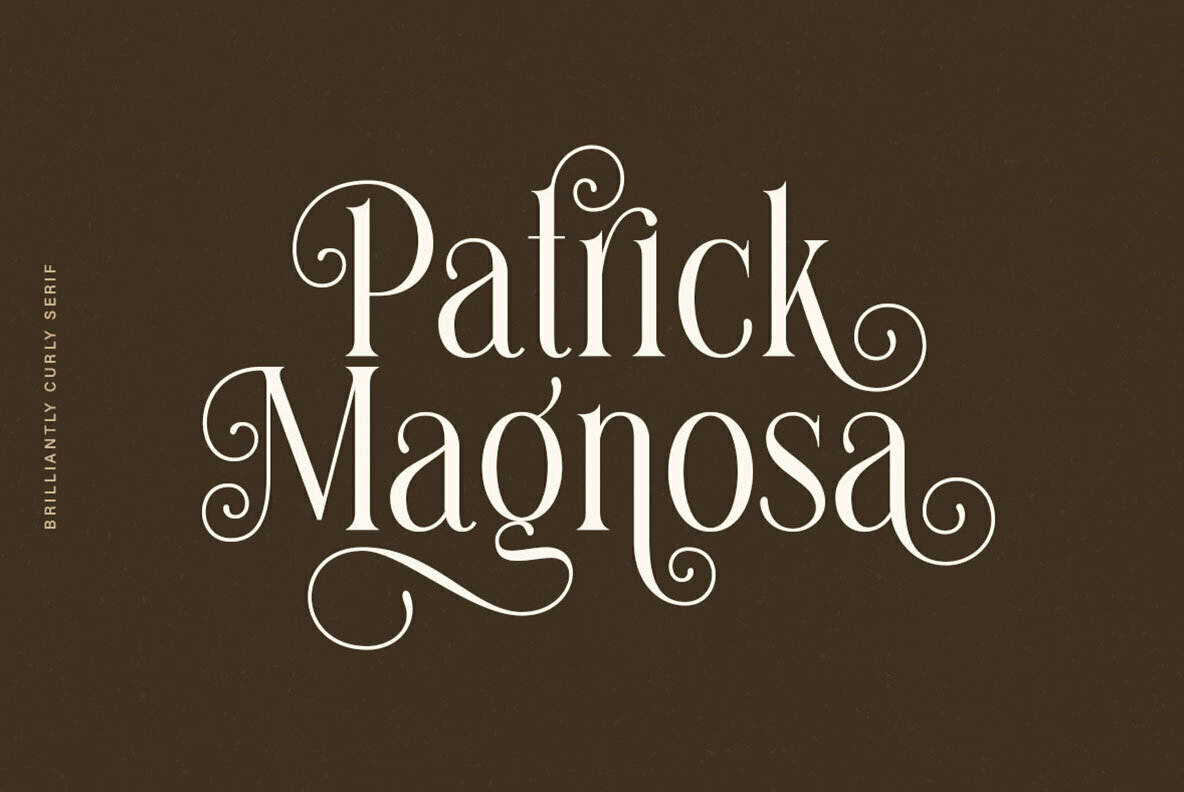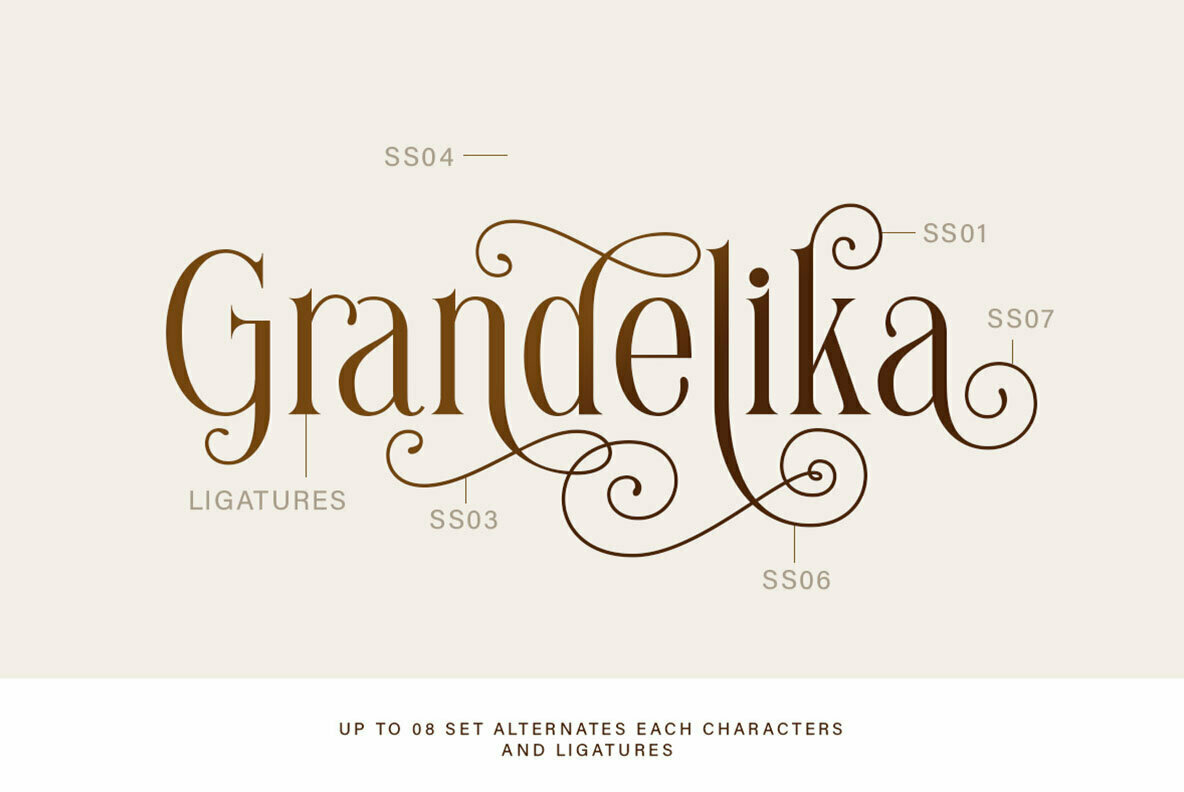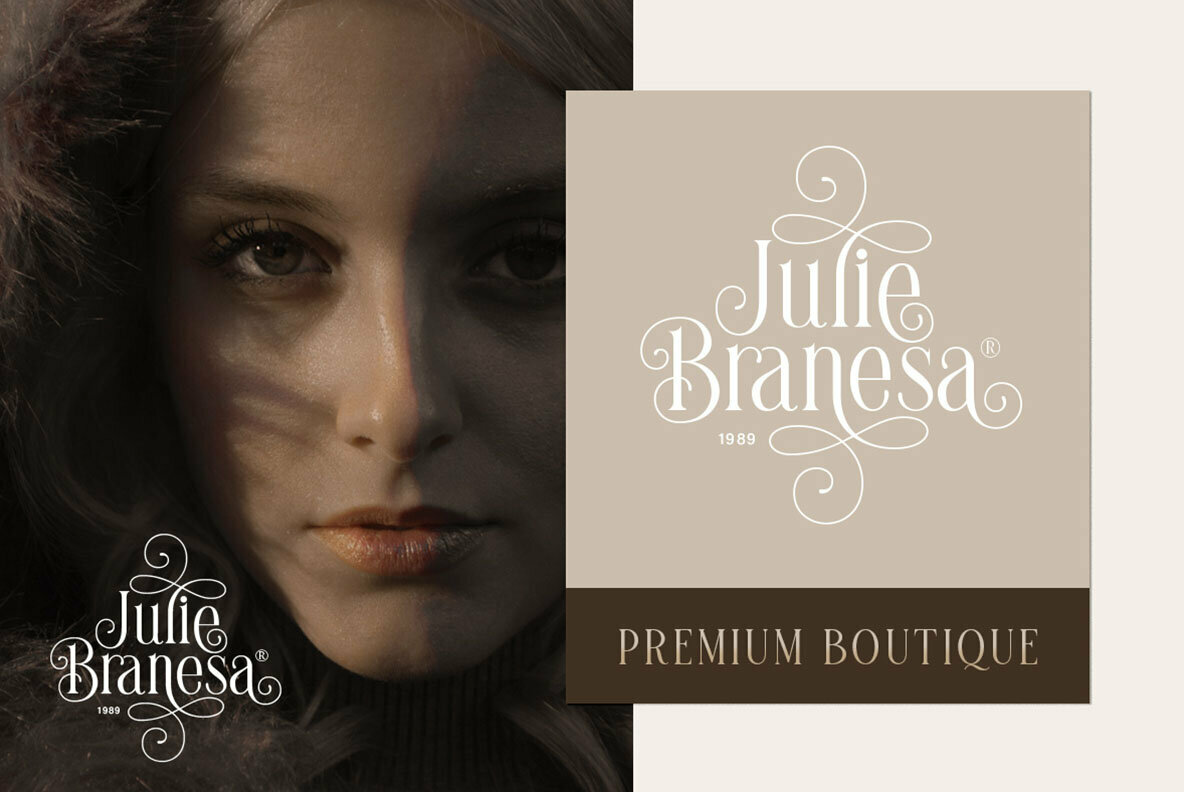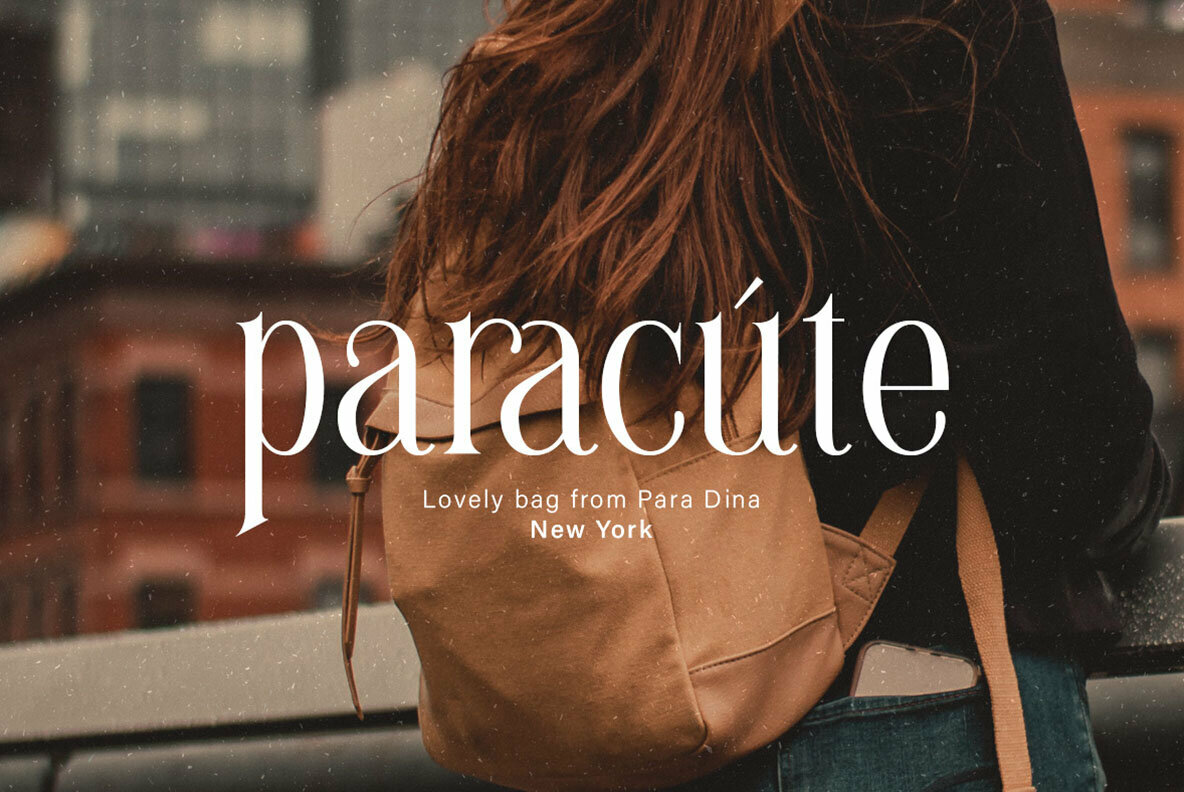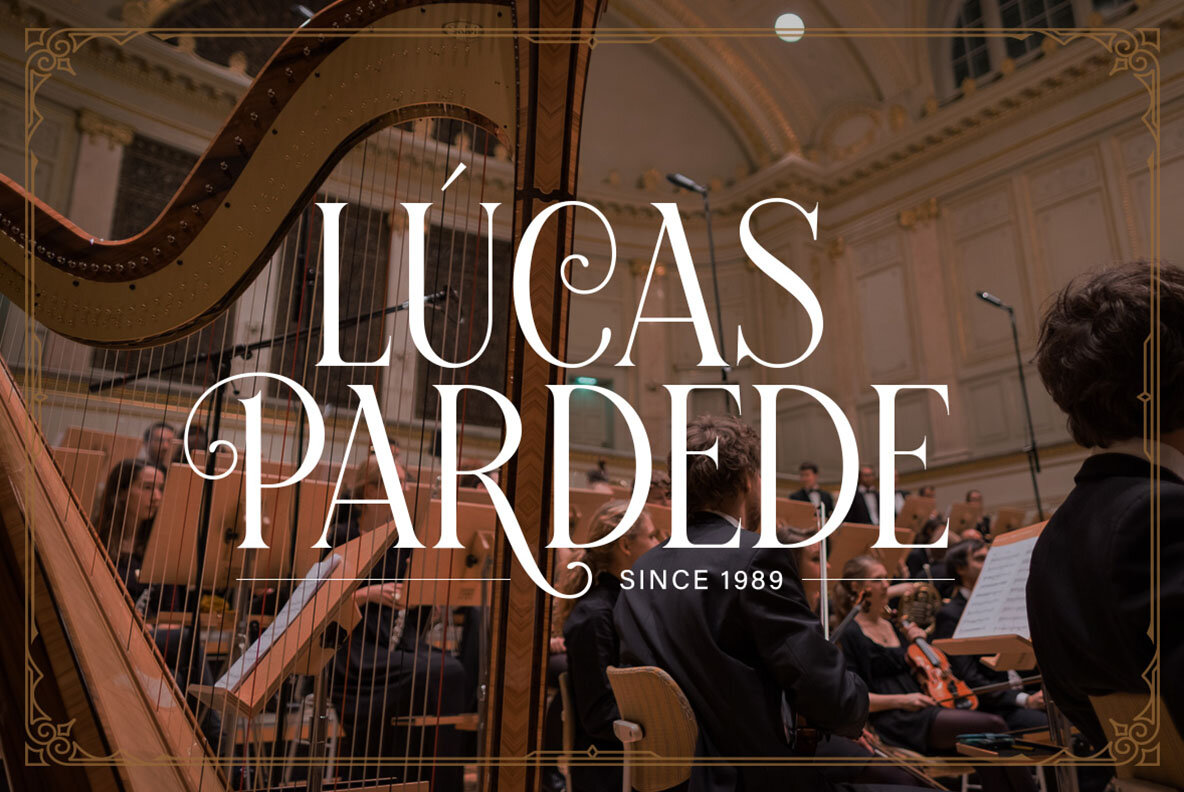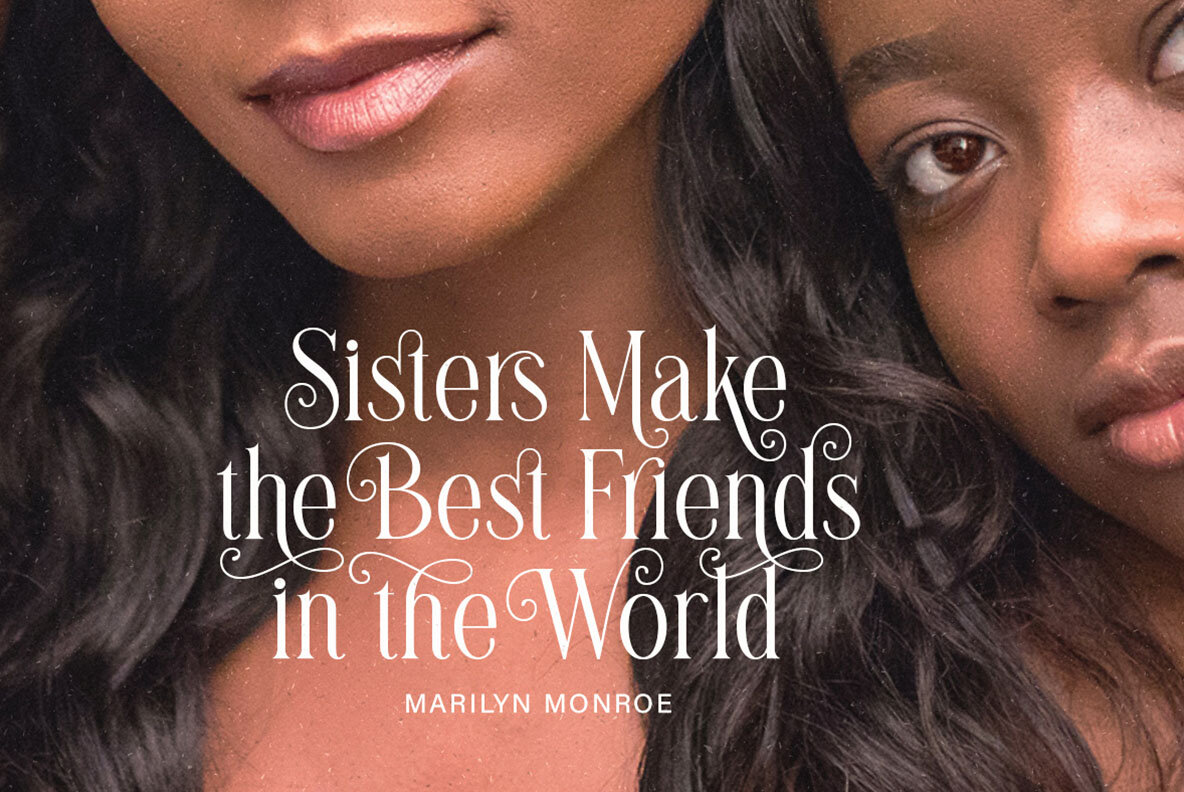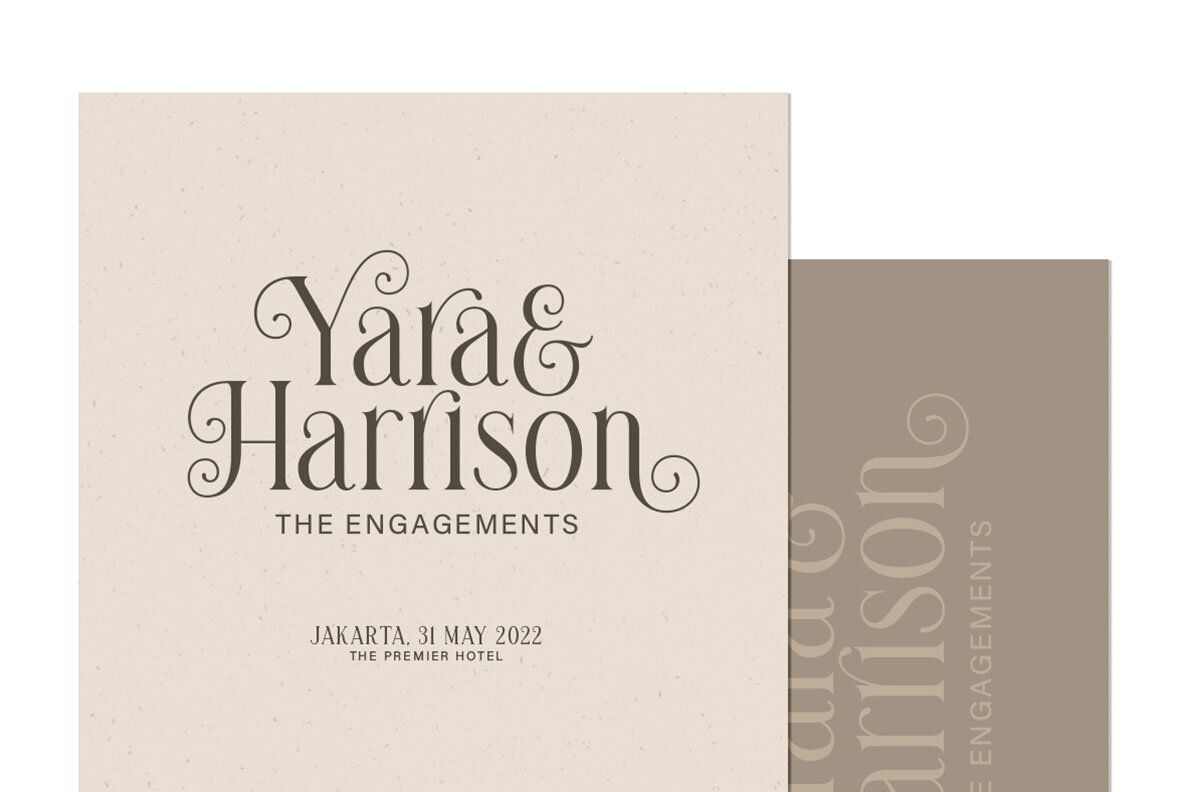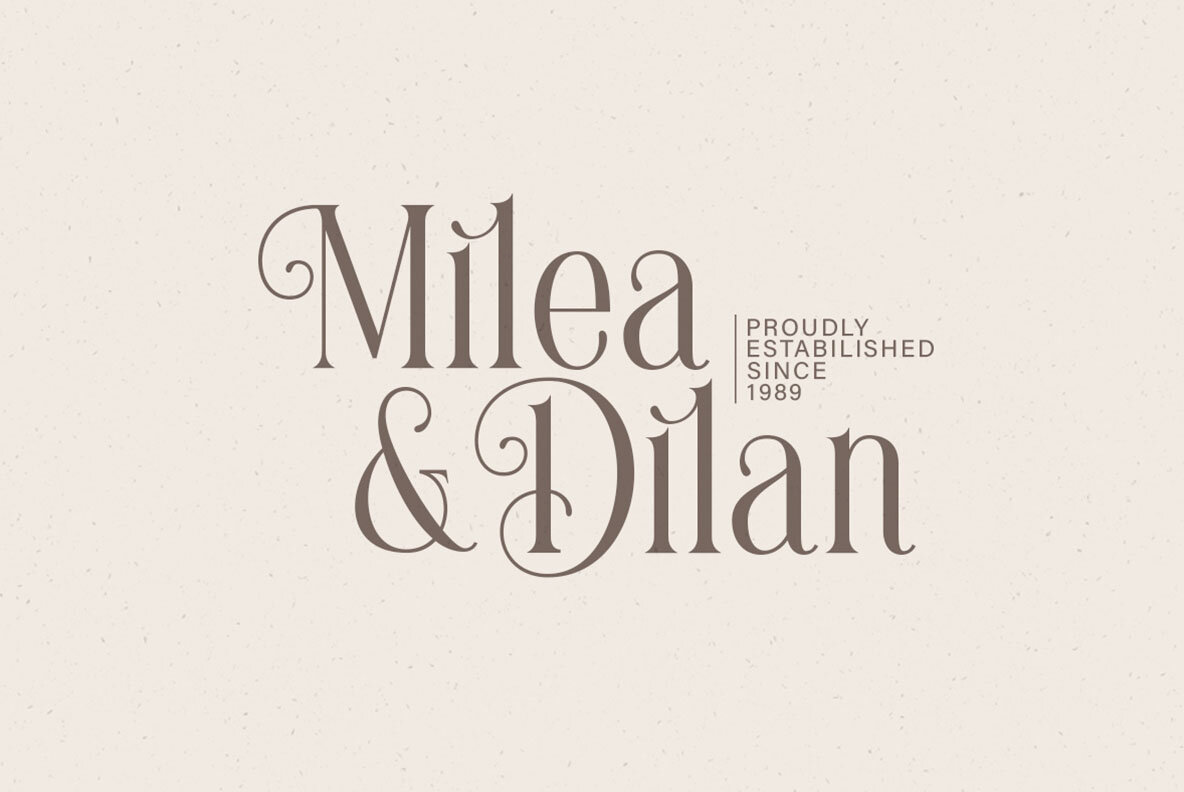
Brilliantly Font
Brilliantly
Brilliantly is a serif font rich with character and elegance. Designed to enhance various design projects, it offers an array of alternates and distinctive swashes for creating unique lettering and logos. The fusion of clean serif lines with swirling swashes makes Brilliantly truly exceptional. Ideal for logos, invitations, labels, and formal stationery, Brilliantly lends itself superbly to a range of applications. It's a choice font for magazines, novels, and even fashion labels, presenting an aesthetic that effortlessly elevates any design. Whether you're crafting wedding cards or stylish packaging, this font brings a unique flair suitable for advertising and beyond. For optimal use and access to glyph variations, it's best to work with programs supporting OpenType features and Glyphs panels, such as Adobe apps and CorelDRAW.Brilliantly: A Distinguished Serif Font With Swashes